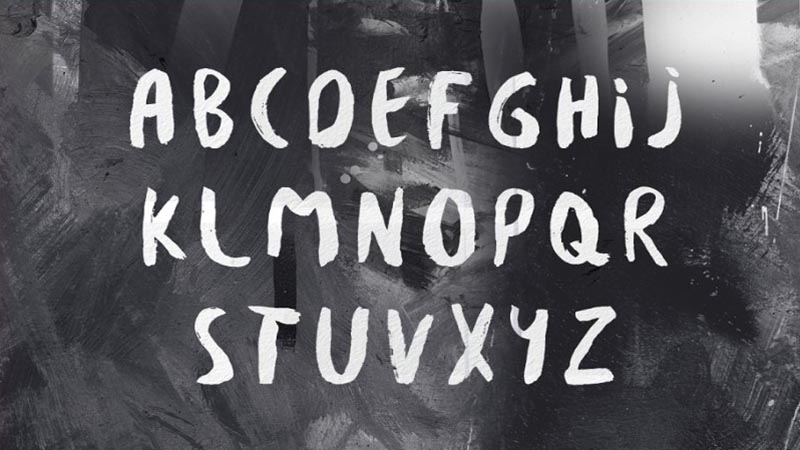
Besom Font
Besom Font is known for its script typeface. This typeface is considered as the best text generator. This is also known as paint fonts. It lets in the residence home windows cleartype textual content rendering machine, which desires to beautify textual content clarity on liquid crystal display suggests.
Present-day stylish fonts are clearly in craze due to the fact of its presence in the markets. Effective patterns, exceptional finishing contact like tangled font, and amazing contemporary designs make these days. Download This loose internet font is a sans serif with a low distinction and a tall x-top, competencies that translate properly onto the display. Its large character set consists of small caps, pictograms, and arrows.
Just like ocean font, it offers a clean and in recent times appear for your internet net web page or weblog. Which you may format the precise posters, logos, books covers, labelings, watermarks thru video improving.